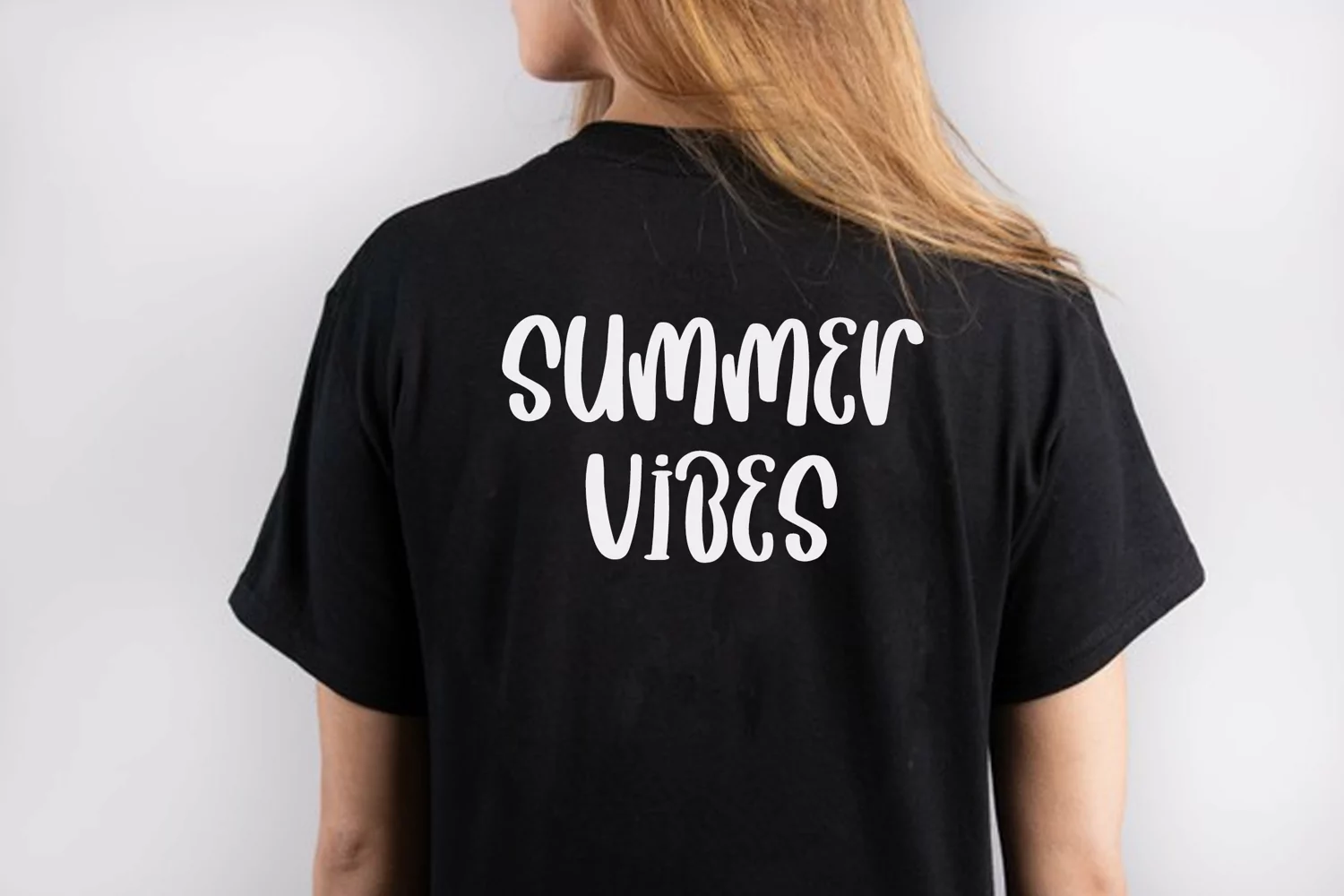
Mermaid In Love is a cute display font. Sweet and playful, this typeface can elevate the look of any creation ranging from product packaging to business cards, and more!
Mermaid In Love